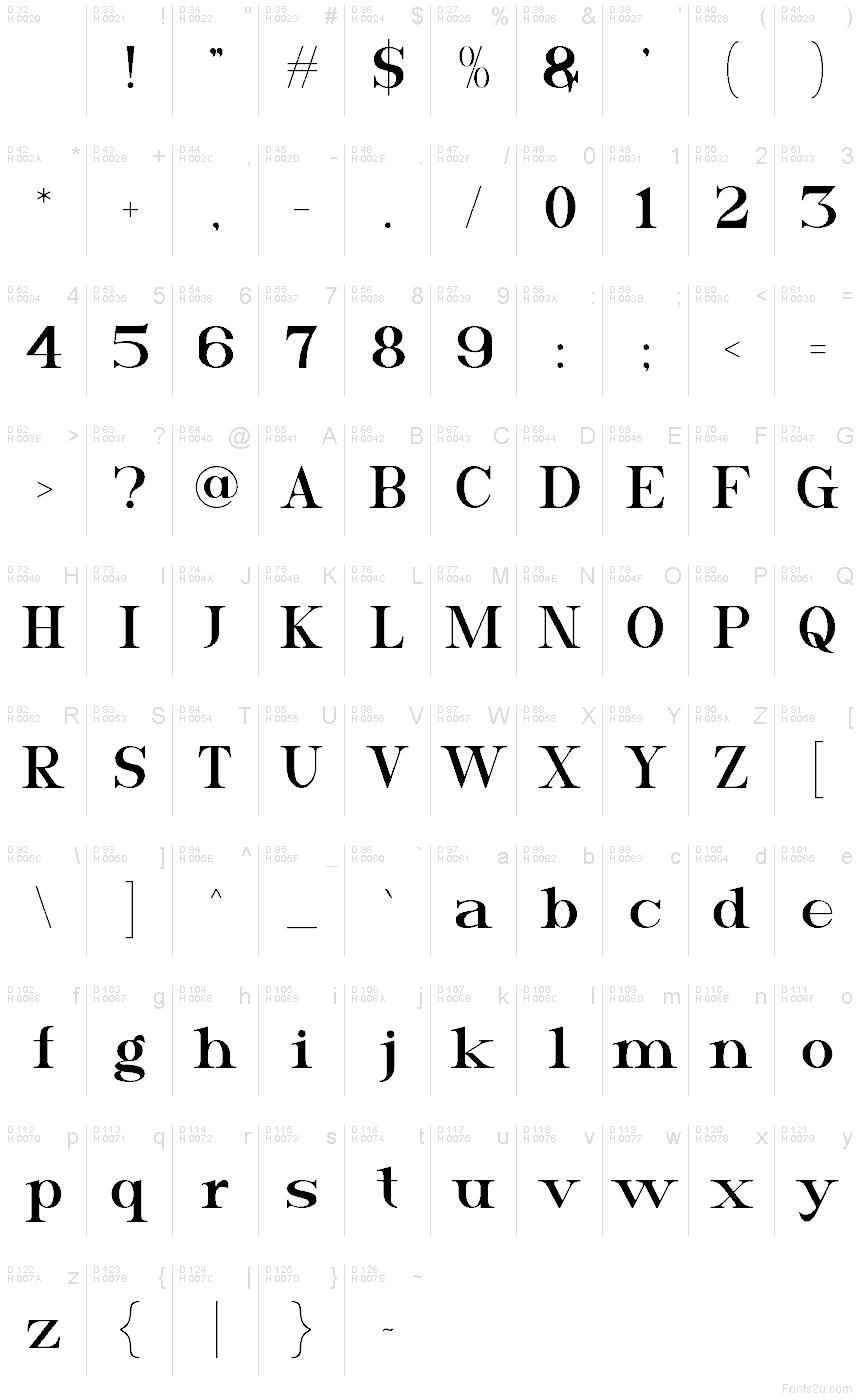
VERIETTA Bold
Verietta Bold font by Gilang Ternadho is a serif font with an elegant, refined, and artistic style. It portrays a sophisticated presence thanks to its majestic letterforms that have a touch of historic flair. Verietta Bold is anything but predictable, adding exclusive beauty to the projects and designs that utilize it.
The free serif font can be used in branding projects of any type like logo design and product packaging. Fashion magazine covers, music album covers, flyers, posters or online title fonts are all good options for using Verietta bold whether at small or large scales. If you’re more into digital communication than printed ones, you can diversify this special tool as part of your email campaigns too.